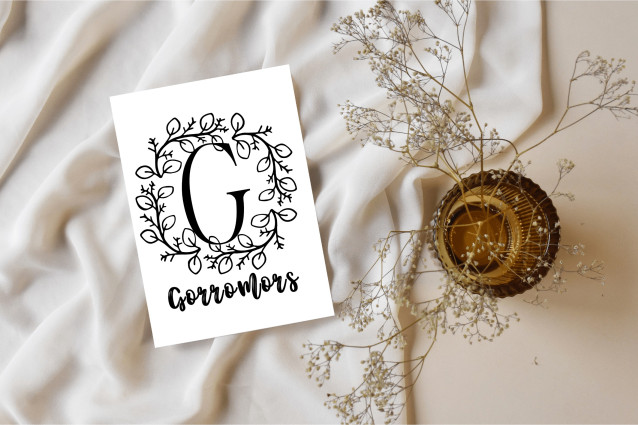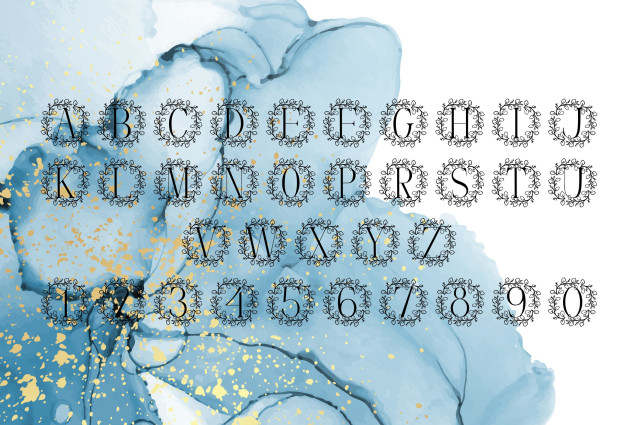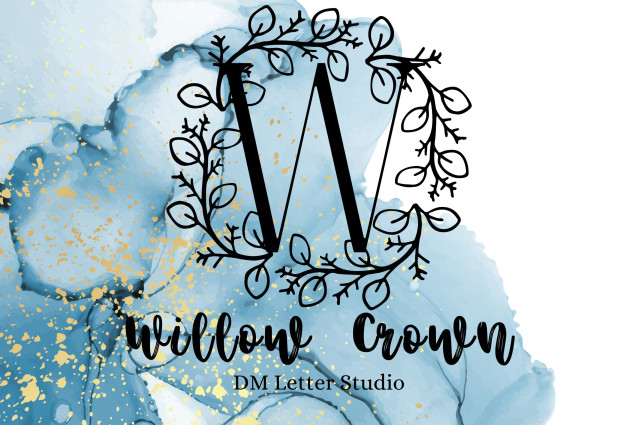
Willow Crown Monogram Font
Willow Crown Monogram Font is a graceful serif monogram font adorned with flowing willow branch embellishments that evoke a sense of natural royalty. Each uppercase letter is delicately crowned with willow foliage, giving your designs a soft, noble touch—perfect for weddings, branding, and elegant personalization projects.